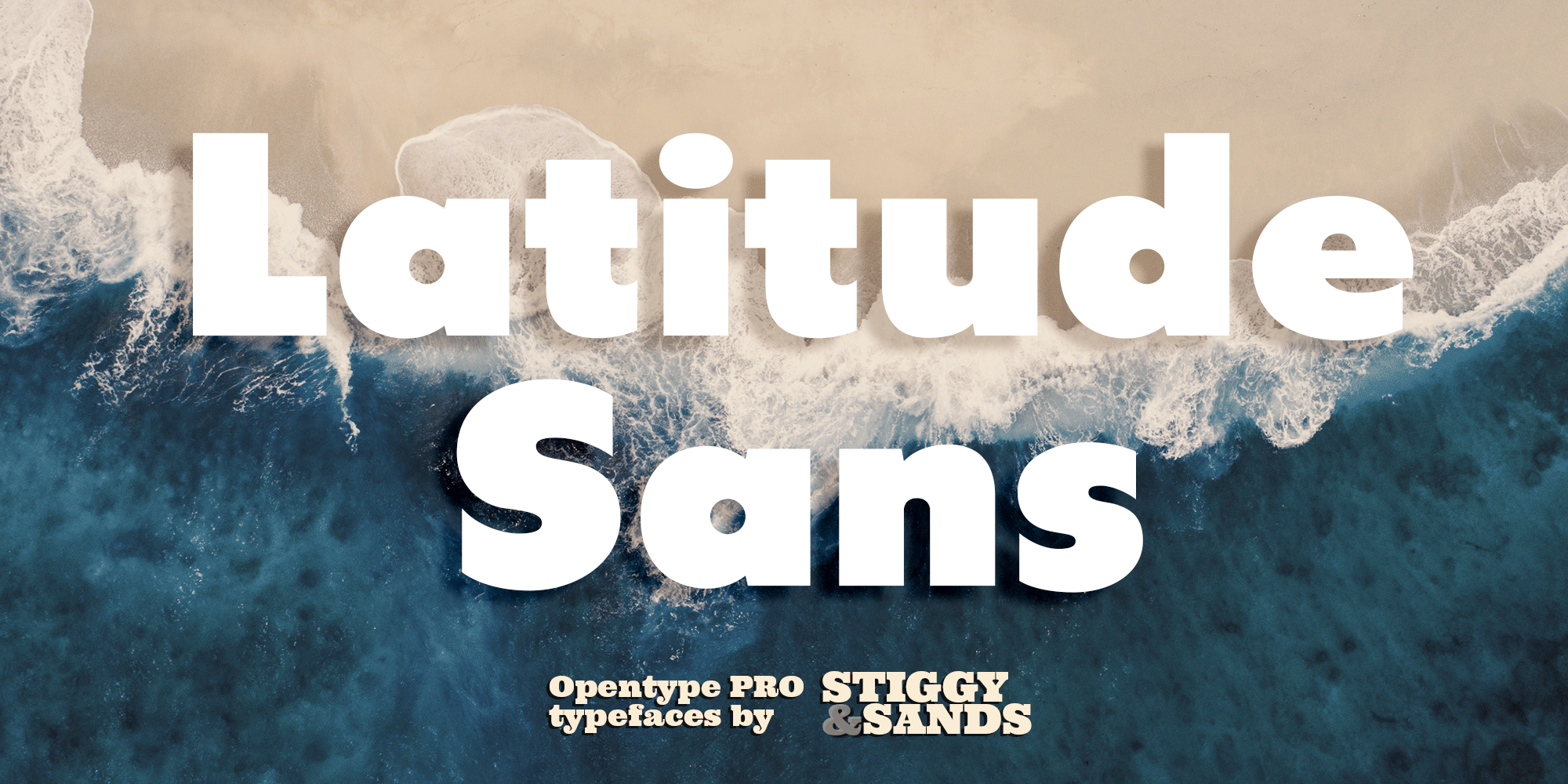
The Latitude Sans Font is ideal for global travel companies, international business communications, geographic information systems, navigation technology branding, aviation industry materials, shipping and logistics firms, world atlas publications, international education programs, and global connectivity projects that require versatile typography with worldwide appeal and cross-cultural accessibility.
What makes the Latitude Sans Font so exciting is its remarkable ability to embody the spirit of global exploration and international connectivity that defines our interconnected world, capturing the essence of crossing boundaries, spanning continents, and bridging cultures through universal design principles. This exceptional typeface represents the evolution of global communication typography, featuring clean geometric letterforms with universal proportions and culturally neutral character details that create an immediate sense of accessibility, reliability, and the kind of international sophistication that facilitates effective communication across diverse languages, cultures, and geographic regions. The font's global versatility and cross-cultural appeal make it the perfect choice for organizations and projects that operate internationally, celebrate cultural diversity, and communicate the values of global connectivity and universal understanding.
The Latitude Sans Font family typically includes thin, light, regular, medium, bold, and black weights, along with comprehensive multilingual character support and international design elements that provide global organizations with versatile tools for creating accessible international branding systems and cross-cultural visual communications across various worldwide applications.
International corporations and global service providers consistently choose Latitude Sans Font Free Download for its exceptional ability to convey international professionalism and cross-cultural credibility. This versatile typeface represents the perfect synthesis of global design thinking and universal accessibility, offering international professionals a powerful tool for building meaningful brand experiences that resonate with diverse audiences across multiple continents, languages, and cultural contexts. Whether you're developing branding for global enterprises, creating materials for international education, designing cross-cultural communication platforms, or crafting worldwide marketing campaigns, this font delivers the international clarity and cultural sensitivity that global communications require.
The expertly crafted letterforms of the Latitude Sans Font showcase optimal proportions and internationally minded styling details that ensure exceptional readability across multiple languages while maintaining strong visual presence and professional credibility in diverse cultural contexts. The font's universal character and global accessibility create immediate associations with reliability, inclusivity, and the fundamental values that drive successful international business operations and cross-cultural collaboration.
Global UX designers and international brand strategists appreciate the font's comprehensive multilingual capabilities and culturally sensitive design principles, which enable the creation of typography that resonates authentically with diverse global audiences while maintaining the professional standards essential for international business success and cross-cultural communication effectiveness.
For organizations seeking to establish authentic connections with global communities and communicate genuine commitment to international accessibility through their visual identity, the Latitude Sans Font provides an exceptional typography solution. Its globally minded foundation and proven international appeal make it particularly suitable for multinational corporations, international NGOs, global education institutions, and worldwide service providers that value cultural diversity and universal accessibility.
The font's optimization for both traditional international print materials and modern global digital platforms ensures consistent worldwide impact across all international communication channels, while its timeless universal aesthetic provides enduring value for globally focused brand systems requiring typography that authentically represents the importance of cross-cultural understanding and international connectivity in today's interconnected global marketplace.